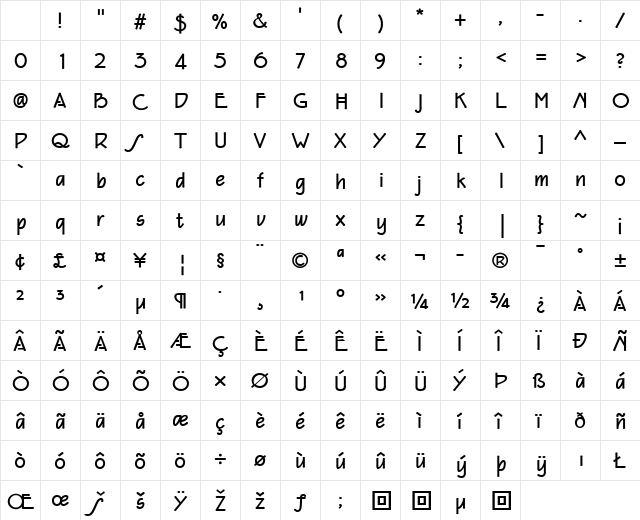
EaglefeatherInformal Bold Free Font
EaglefeatherInformal Bold
Foundry: The Frank Lloyd Wright Foundation. This product has been developed in cooperation with the Frank Lloyd Wright Foundation (Taliesin West, Scottsdale, Arizona). A portion of the sales supports the conservation and education programs of
Design Context for EaglefeatherInformal
EaglefeatherInformal is a composed and adaptable typeface that performs quietly and consistently across a wide range of design contexts. Its bold stroke weight gives it real presence on the page.
Who designed the EaglefeatherInformal Bold font?
This font was published by The Frank Lloyd Wright Foundation. This product has been developed in cooperation with the Frank Lloyd Wright Foundation (Taliesin West, Scottsdale, Arizona). A portion of the sales supports the conservation and education programs of. Check the technical specs section for copyright and designer details.